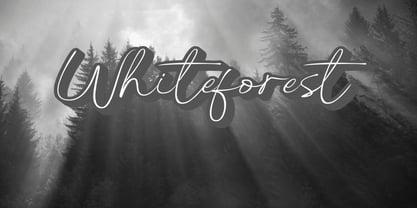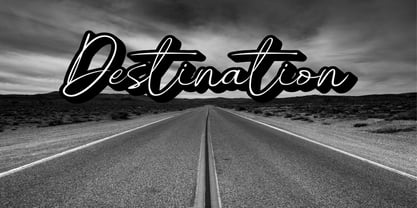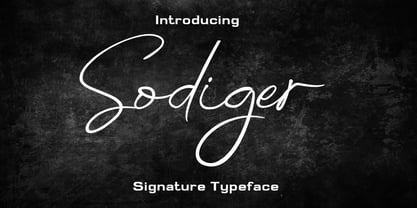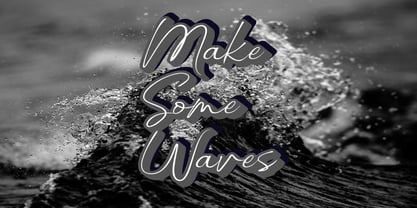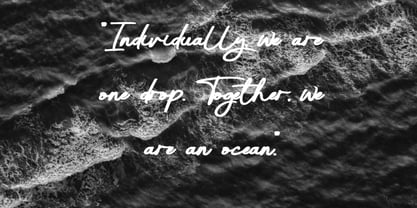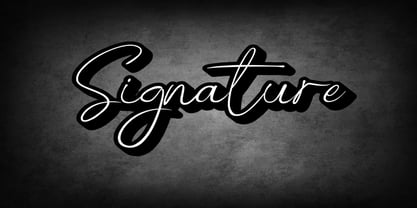
Sodiger
The Sodiger Font Family was designed by Leslie Cabarga and published by Dream Font. Sodiger contains 1 styles. More about this family
Sodiger Script is a lovely script font featuring charming, playful characters that seem to dance along the baseline. Add this font to your most creative ideas, and notice how it makes them stand out! Sodiger Script is PUA encoded, which means you can access all of the glyphs and swashes with ease.